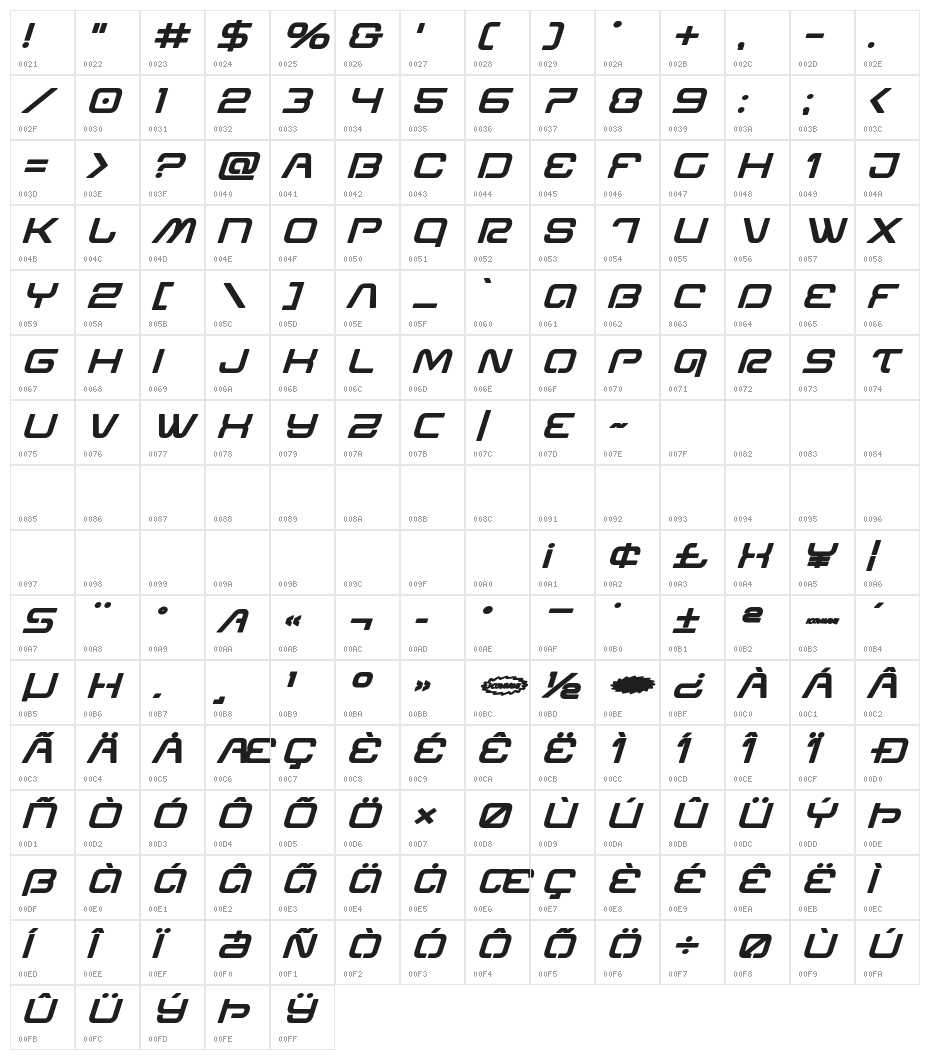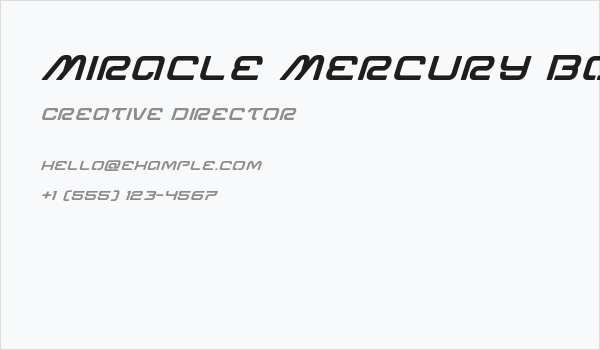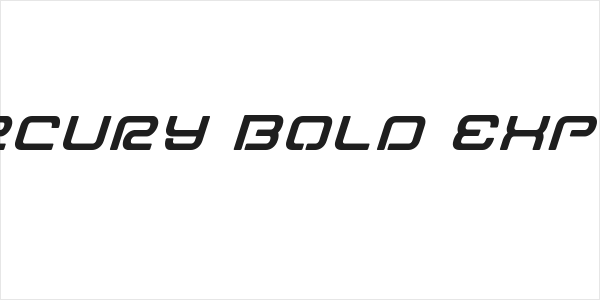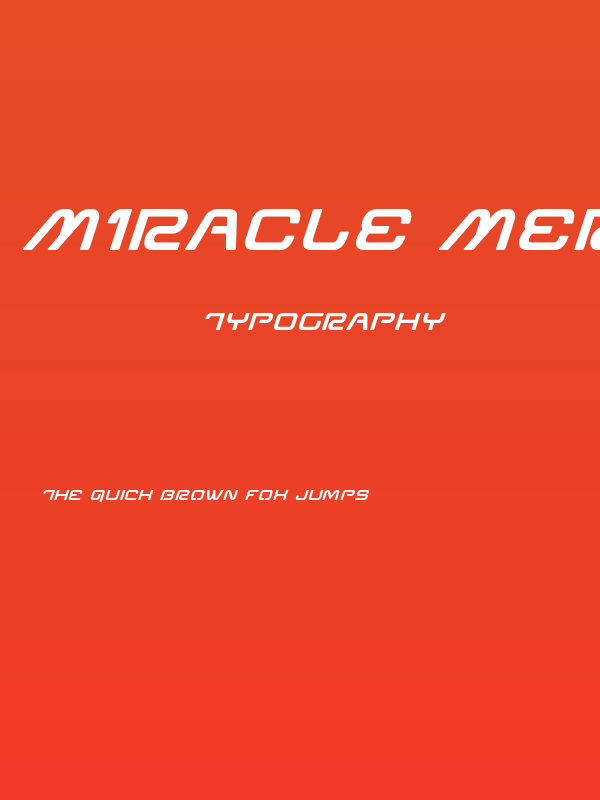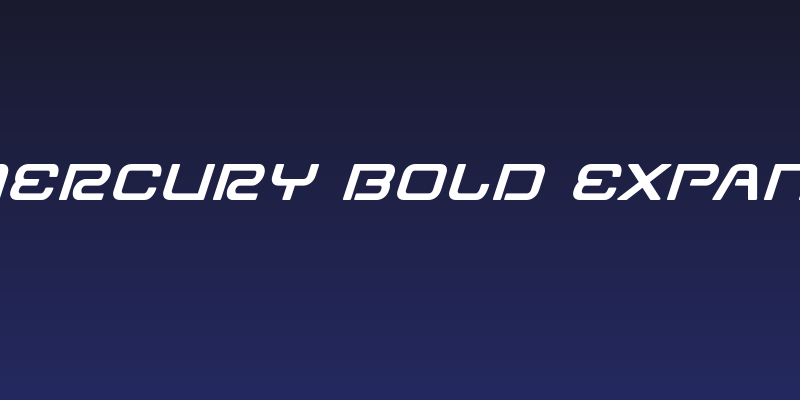
Miracle Mercury Bold Expanded Italic Font
Miracle Mercury Bold Expanded Italic Description
This font features a bold and expanded style with a distinctive italic slant, giving it a dynamic and modern appearance. The characters are designed with smooth curves and sharp edges, creating a futuristic and sleek look. The uppercase and lowercase letters maintain a consistent style, with a slight forward tilt that enhances the sense of motion. The numerals and special characters are crafted to match the overall aesthetic, ensuring uniformity across all elements. The font's expanded width allows for excellent readability, making it suitable for various design applications.
| Proposed Projects | Ideal for futuristic branding, tech-related designs, sports team logos, and dynamic advertising campaigns. |